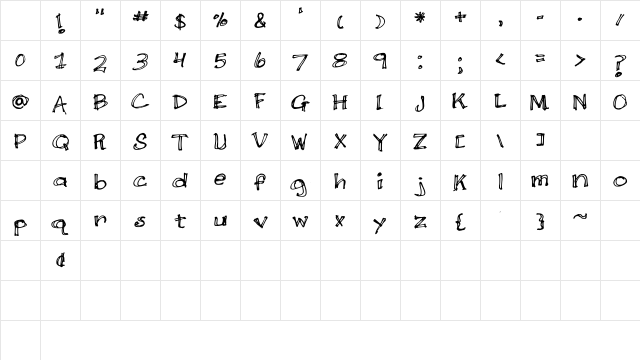
Complete Double Scratch Medium glyph index. Displaying only characters natively supported by Double Scratch Medium font.
Double Scratch is a composed and adaptable typeface that performs quietly and consistently across a wide range of design contexts.